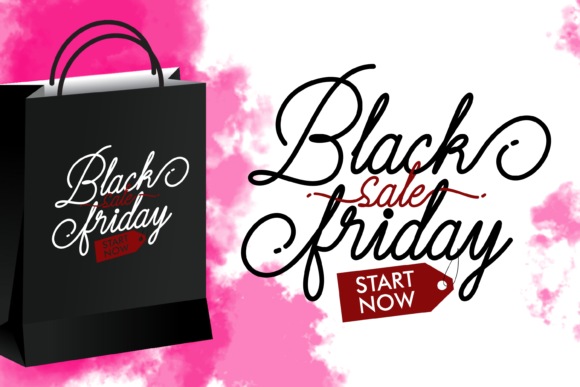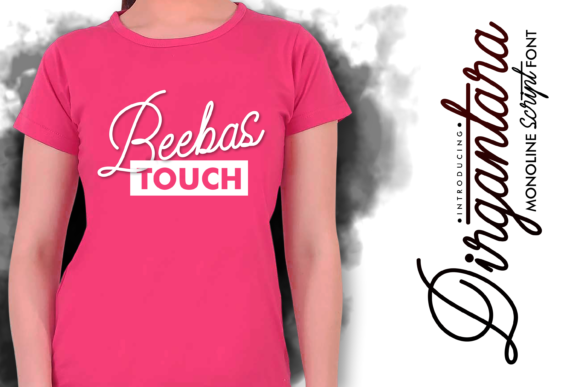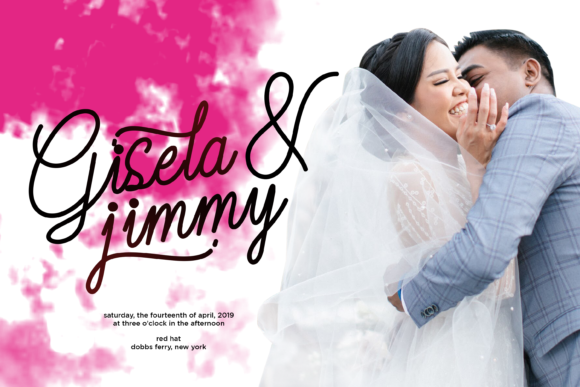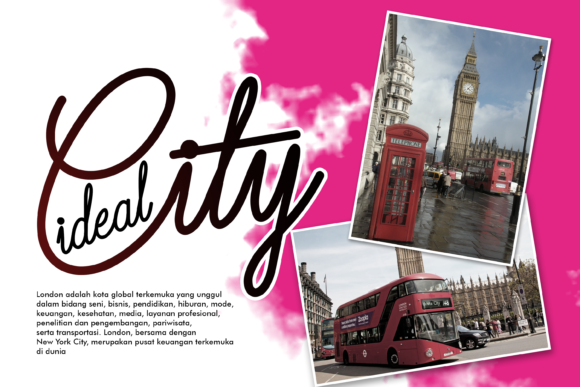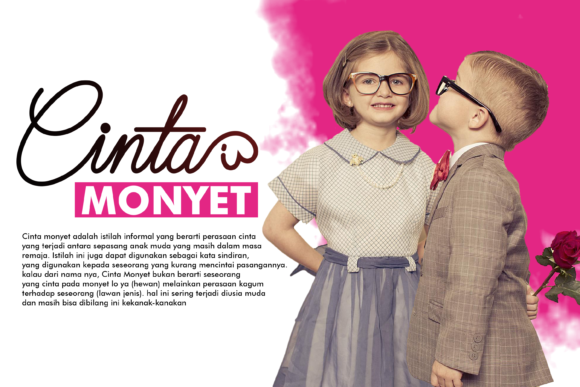
Dirgantara Font
About Dirgantara Font
Dirgantara is a fresh & modern script font. It has a handmade calligraphy style and includes amazing decorative characters.